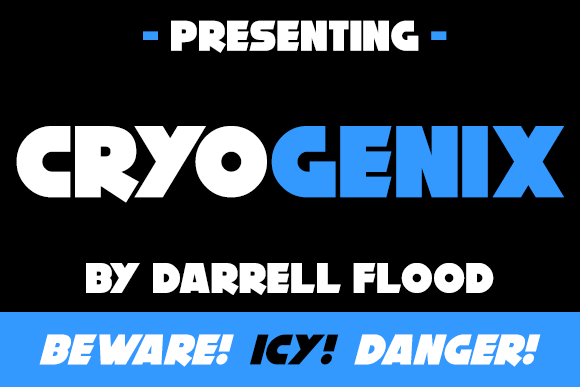
Cryogenix Font
Unleash your creativity and leave an unforgettable impact with Cryogenix Font, the ultimate display font designed to captivate and inspire. Created by the visionary Dadiomouse, Cryogenix Font is a bold, fresh, and captivating font that will elevate your designs to new heights.
Immerse yourself in a world of limitless possibilities with Cryogenix Font. Its clean and precise lines, coupled with a striking modern edge, make it the perfect choice for rave venues, where energy and vibrancy collide. Unleash your imagination and create stunning posters, flyers, and invitations that radiate an electrifying atmosphere. But Cryogenix Font's versatility doesn't stop there.
Take your general print projects to the next level with Cryogenix Font. Its crisp and legible characters ensure that your messages are communicated with clarity and impact. Create eye-catching headlines, captivating logos, and thought-provoking quotes that resonate with your audience. With Cryogenix Font, boredom is a thing of the past.
Don't settle for ordinary fonts that blend into the background. Choose Cryogenix Font and watch your designs come alive. Embrace its captivating essence and embark on a journey of creativity, innovation, and self-expression.